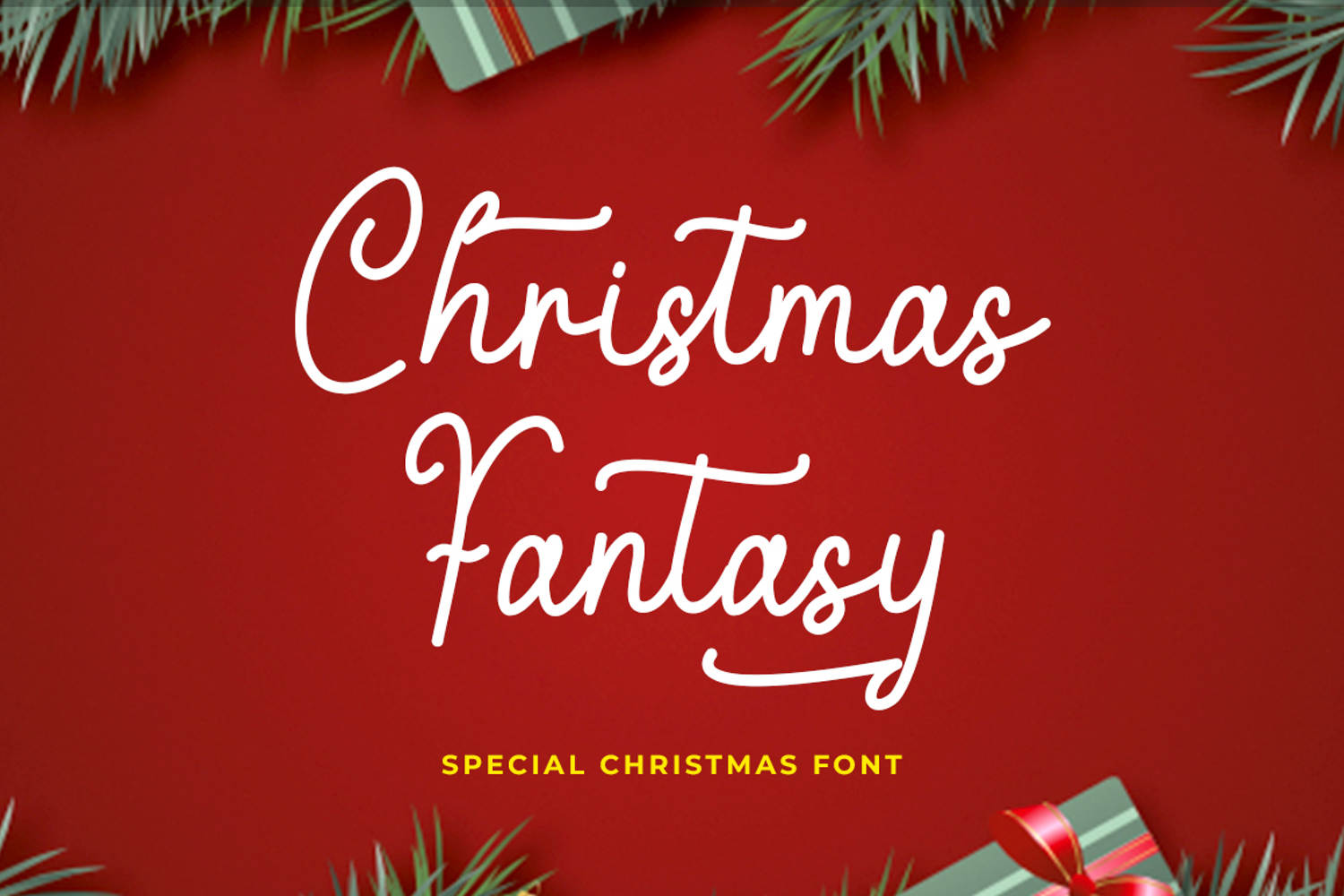
Christmas Fantasy Font
Christmas Fantasy
Christmas Fantasy is a warm and whimsical monoline script font designed to bring holiday magic to every project. Its smooth, flowing strokes and gentle handwritten style capture the cozy spirit of Christmas—perfect for greeting cards, gift tags, festive quotes, branding, stationery, and seasonal social media posts.
With its clean monoline consistency and charming holiday feel, Christmas Fantasy adds a touch of elegance and joyful personality to your designs. Let this delightful script font make your Christmas projects shine with beauty, warmth, and festive cheer.